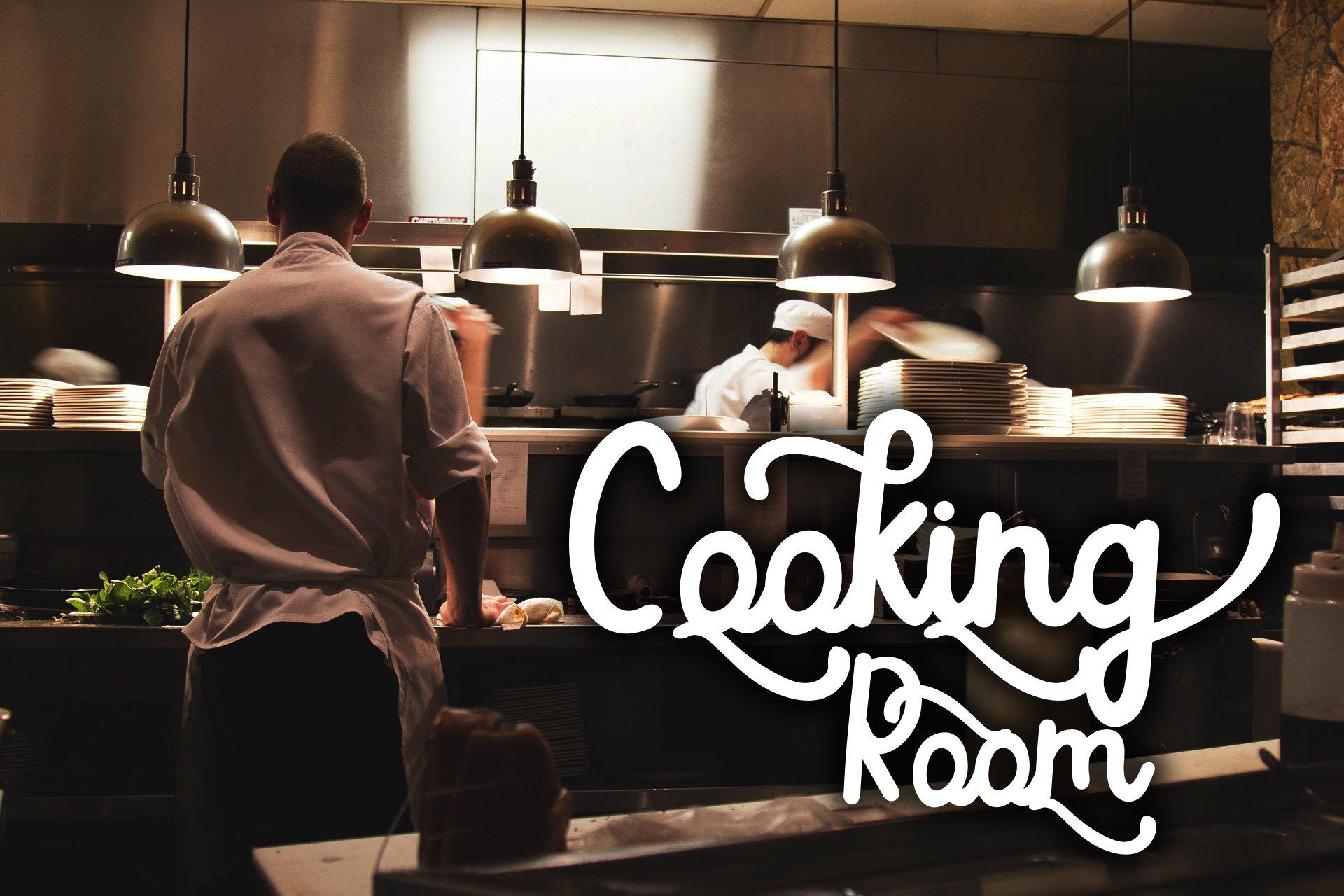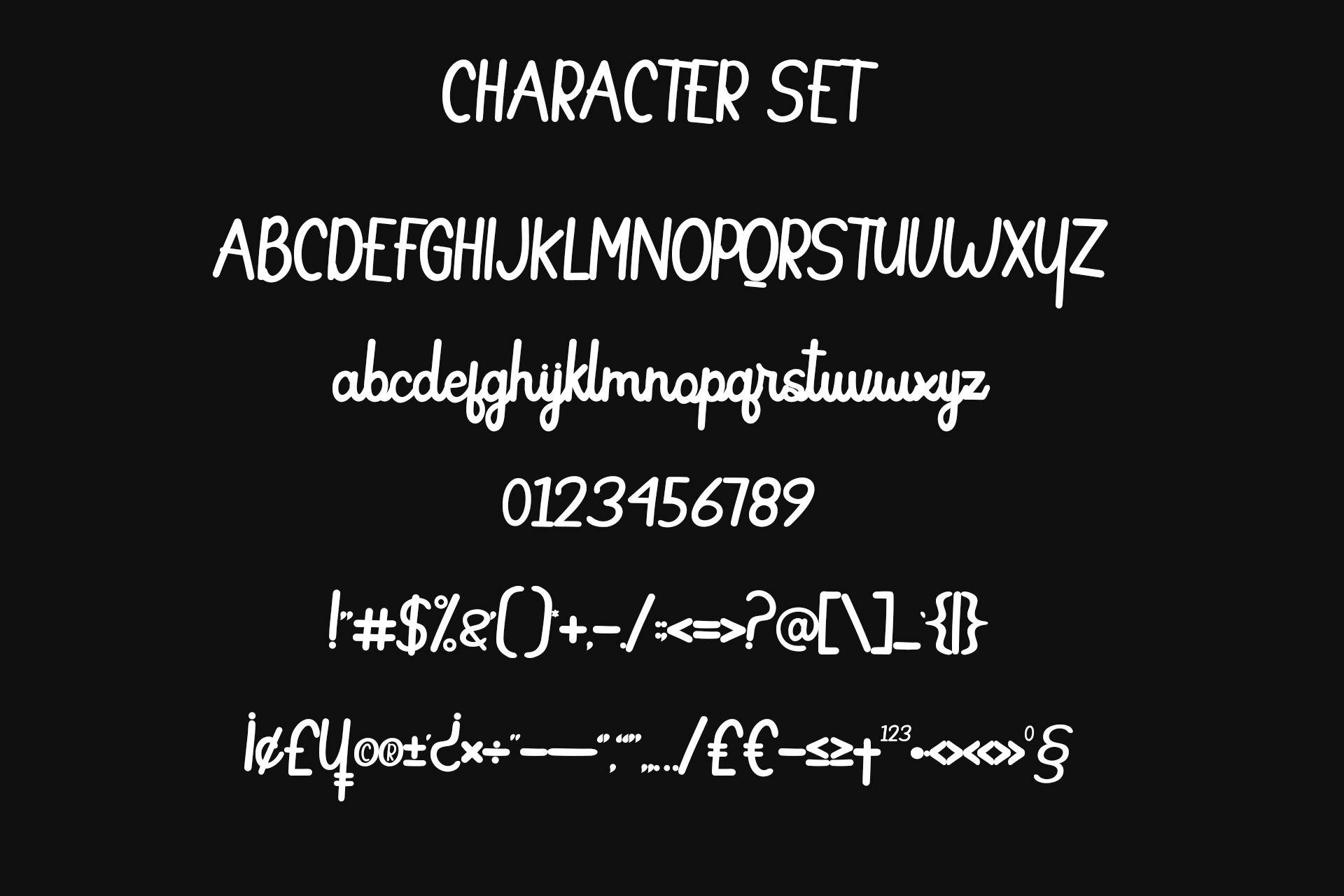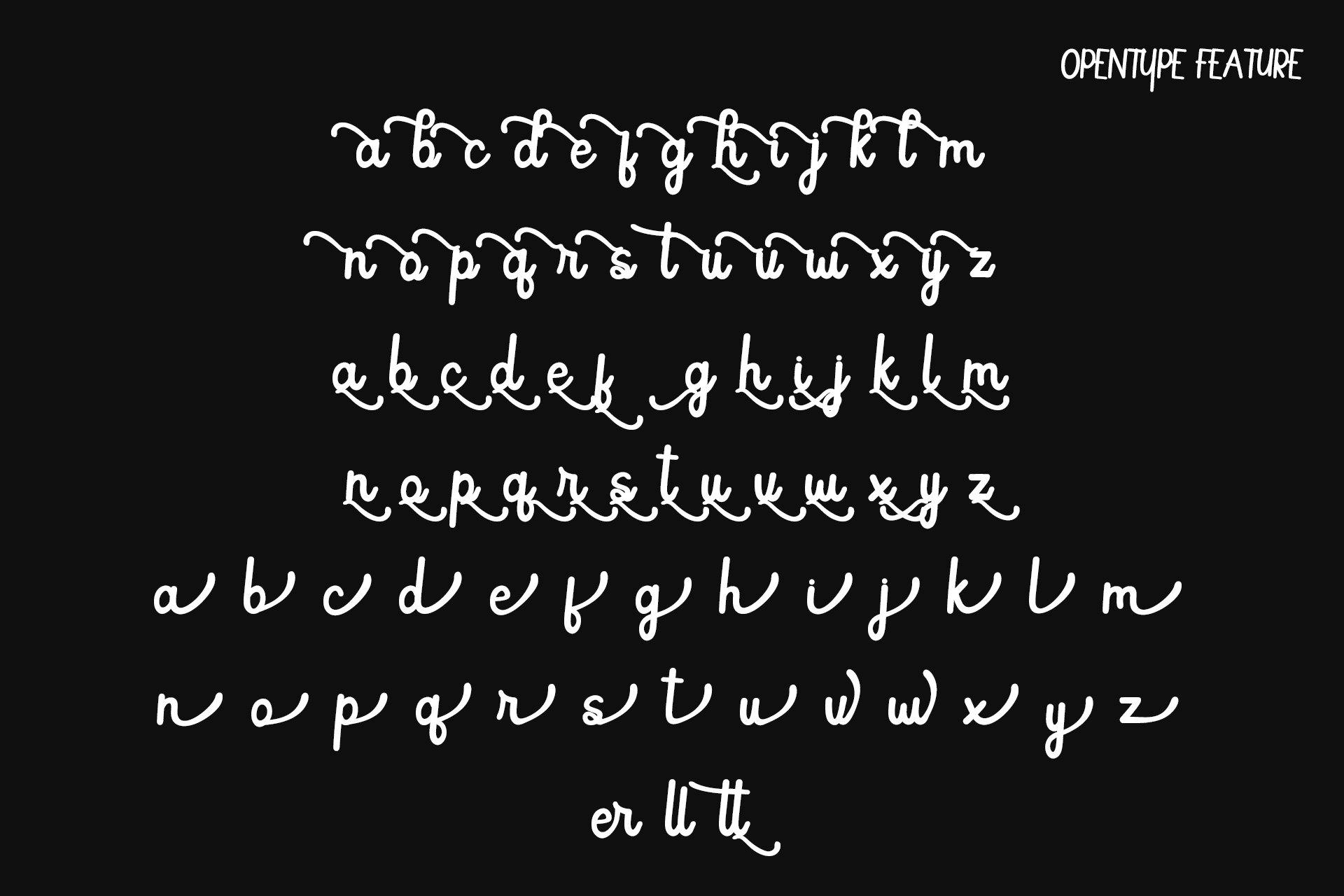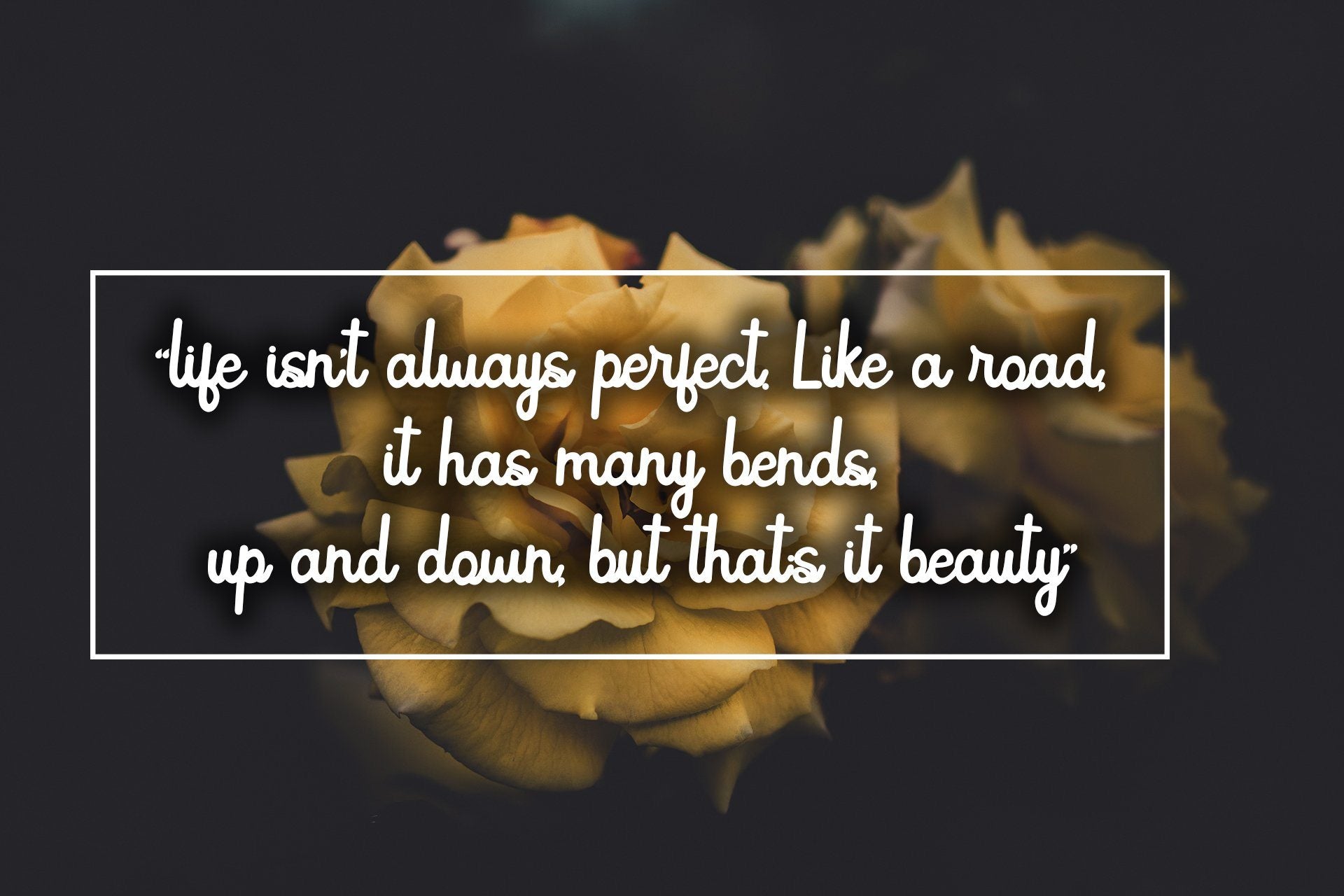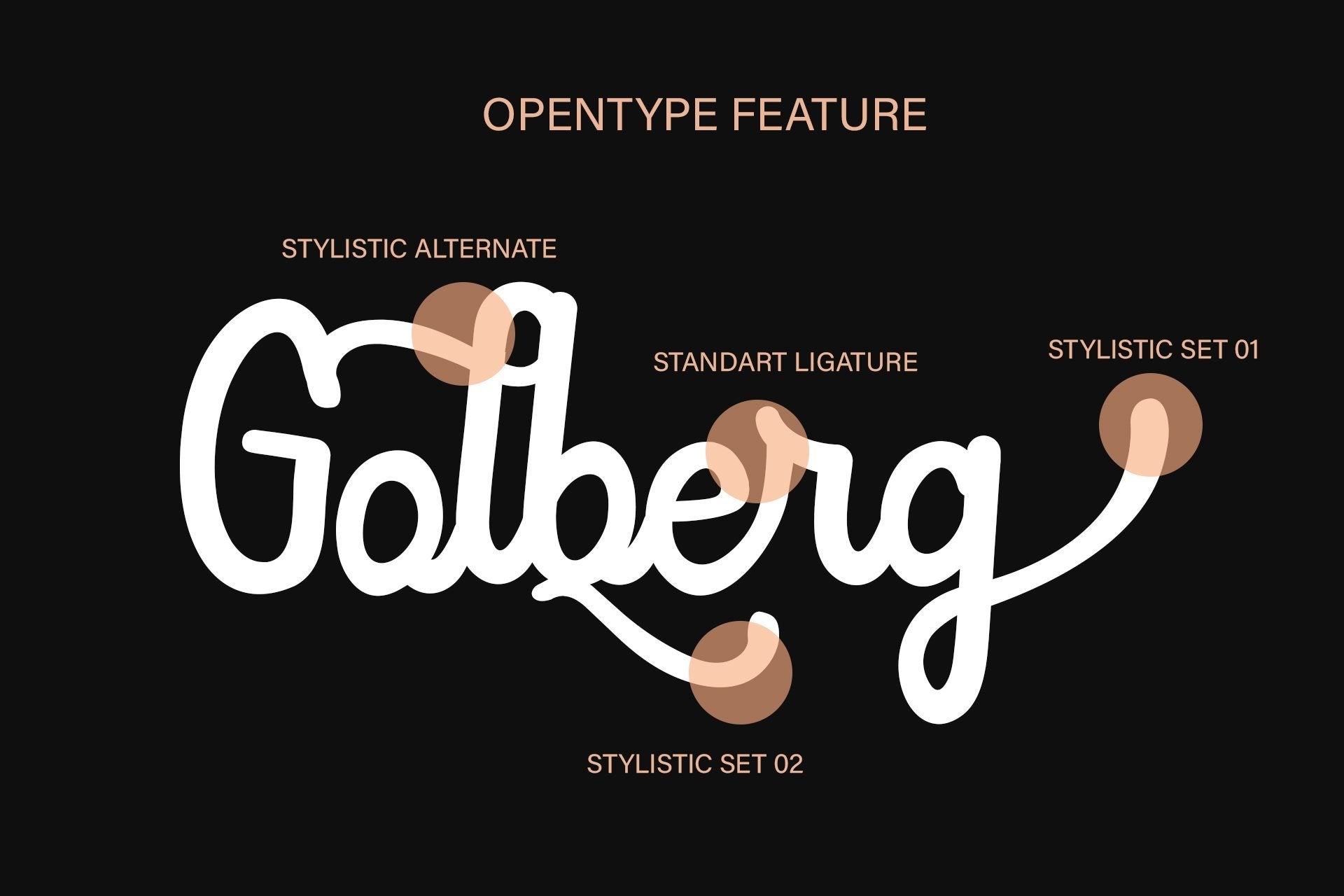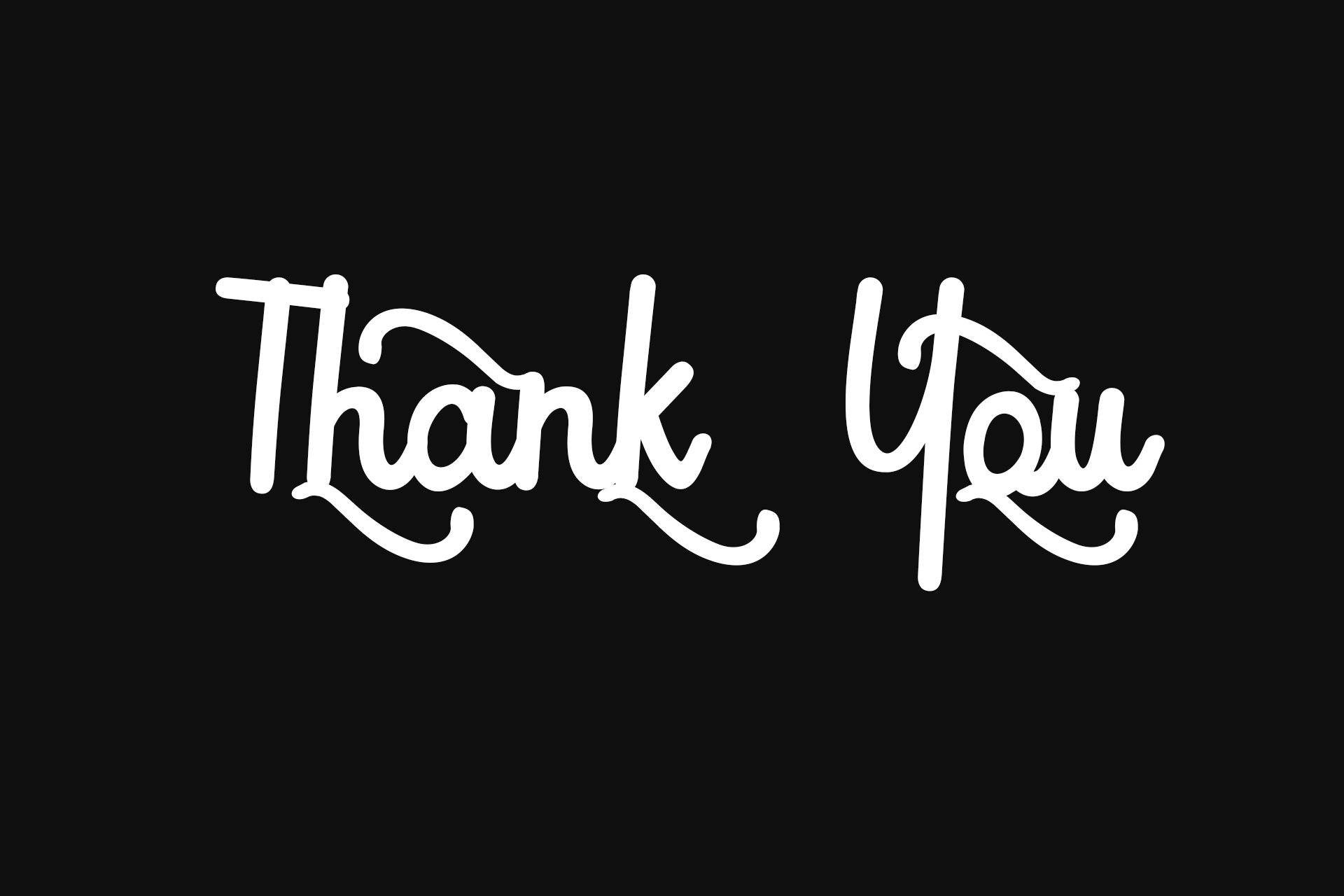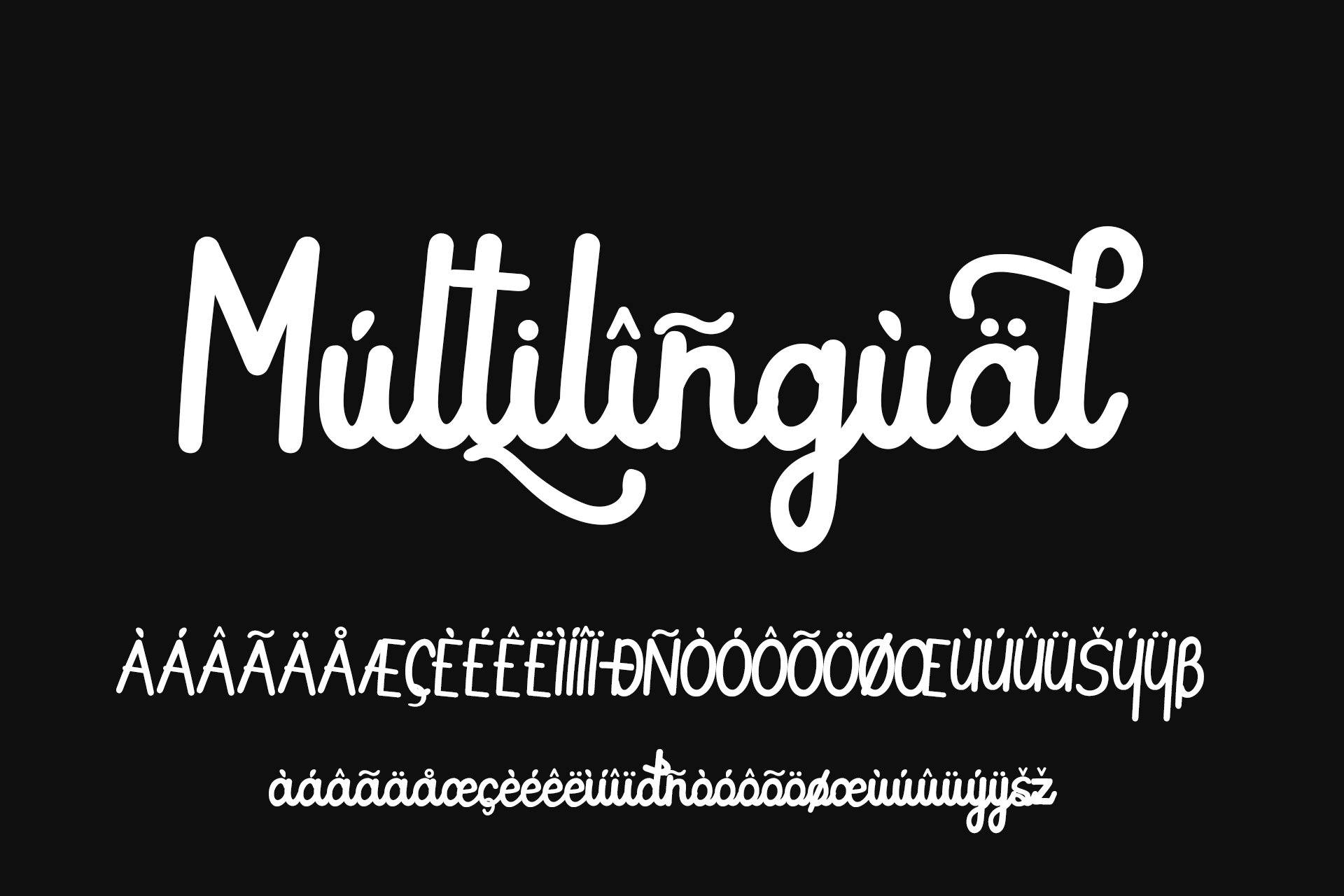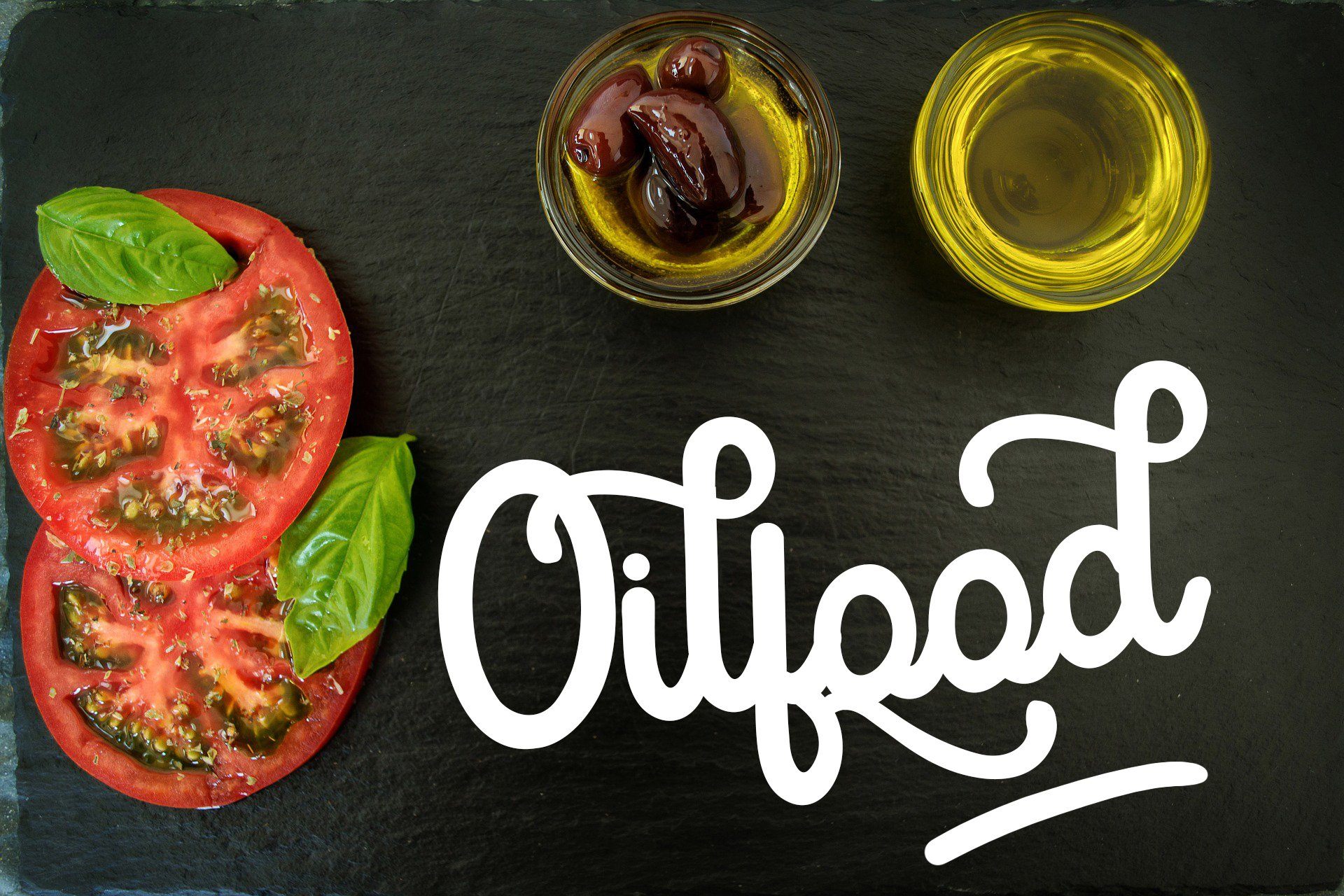
Butterfly Monoline Script Font
About Butterfly Monoline Script Font
Butterfly is a monoline type font combined with a script so it looks elegant, there are opentype features in it, suitable to support a variety of designs and your business **What’s include:**\ Butterfly Script Otf\ Butterfly Script Ttf\ more than 270+ of glyphs\ Ligature\ Stylistic set for lowercase\ Stylistic set for Ending\ PUA Encoded Characters – Fully accessible without additional design software.\ Basic Latin Language Support (AÀÁÂÃÄÅCÇDÐEÈÉÊËIÌÍÎÏÑOØÒÓÔÕÖUÙÜÚÛWYÝŸÆß ) How to access alternate glyphs? you can see it on this link ( http://goo.gl/1vy2fv )